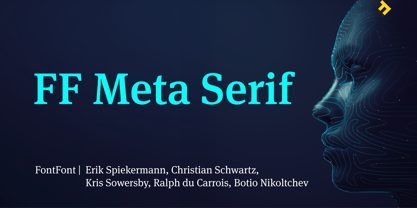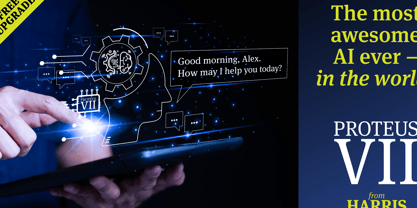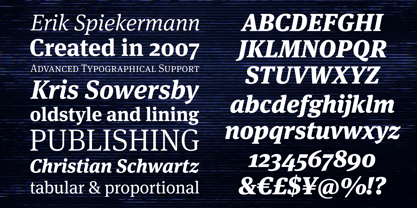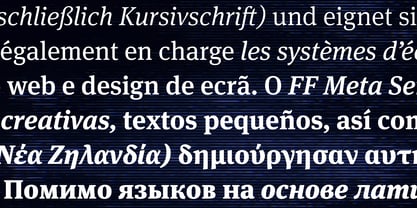
FF Meta® Serif
La famille de polices FF Meta Serif a été conçue par Christian Schwartz, Erik Spiekermann, Ralph du Carrois, Kris Sowersby, Botio Nikoltchev et publiée par FontFont. FF Meta Serif contient 12 styles et options de package familial.
FF Meta Serif, crafted by Erik Spiekermann, Christian Schwartz, and Kris Sowersby in 2007– with later refinements by Ralph du Carrois and Botio - brings a gentle warmth and expressive clarity to hard copy and digital communication, making it a standout choice for everything from chatbot interfaces and modern web interfaces to branding and publication design. FF Meta Serif balances editorial grace with interface demands.
In environments like conversational banking – where tone, trust, and clarity define user experience – FF Meta Serif shines. Its friendly curves and tabular figure options make financial information feel accessible and dependable. These features support AI typography that must project confidence without stiffness. FF Meta Serif enhances readability and engagement.
FF Meta Serif’s versatility extends across interfaces as well as print-based communication. FF Meta Serif’s mindful design – featuring small caps, alternate characters, case-sensitive forms, fractions, superscript and subscript characters – makes it ideal for complex content environments. FF Meta Serif’s strength lies in combining typographic richness with technical practicality.